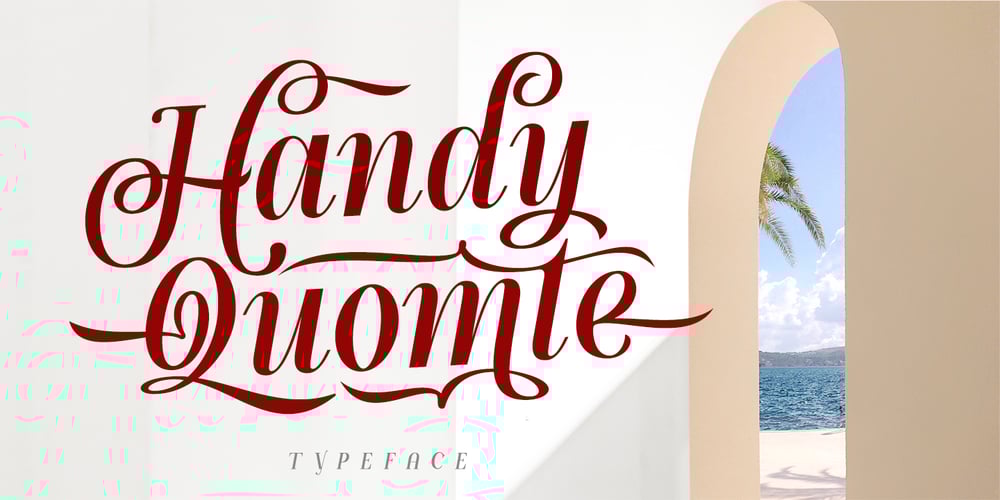
Handy Quomte
Handy Quomte font
Handy Quomte Font Family was designed by Alit Suarnegara and published by Alit Design. Handy Quomte contains 1 styles and family package options. Introducing Handy Quomte Elegant script typefaceHandy Quomte is inspired by the classic era typeface in the 1800 era but is combined with today’s era and produces a very elegant and charming typeface. The details of the “Handy Quomte” shape are very subtle and flow creating unique and gorgeous curves. Elegant script typefaces like “Handy Quomte” are very easy to apply to any design, especially those with an elegant and smooth concept, apart from that this font is very easy to use in both design and non-design programs because all alternates and glyphs are supported by Unicode (PUA).Handy Quomte contains 675 glyphs with many unique and interesting alternate swash options. In addition, there are alternates cool serif fonts for header text and description (see preview). In the poster preview all the letters are in Handy Quomte.